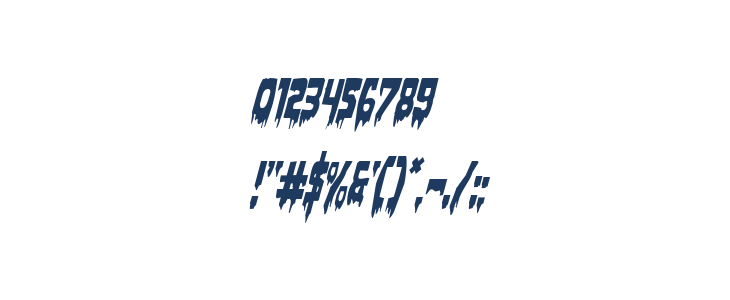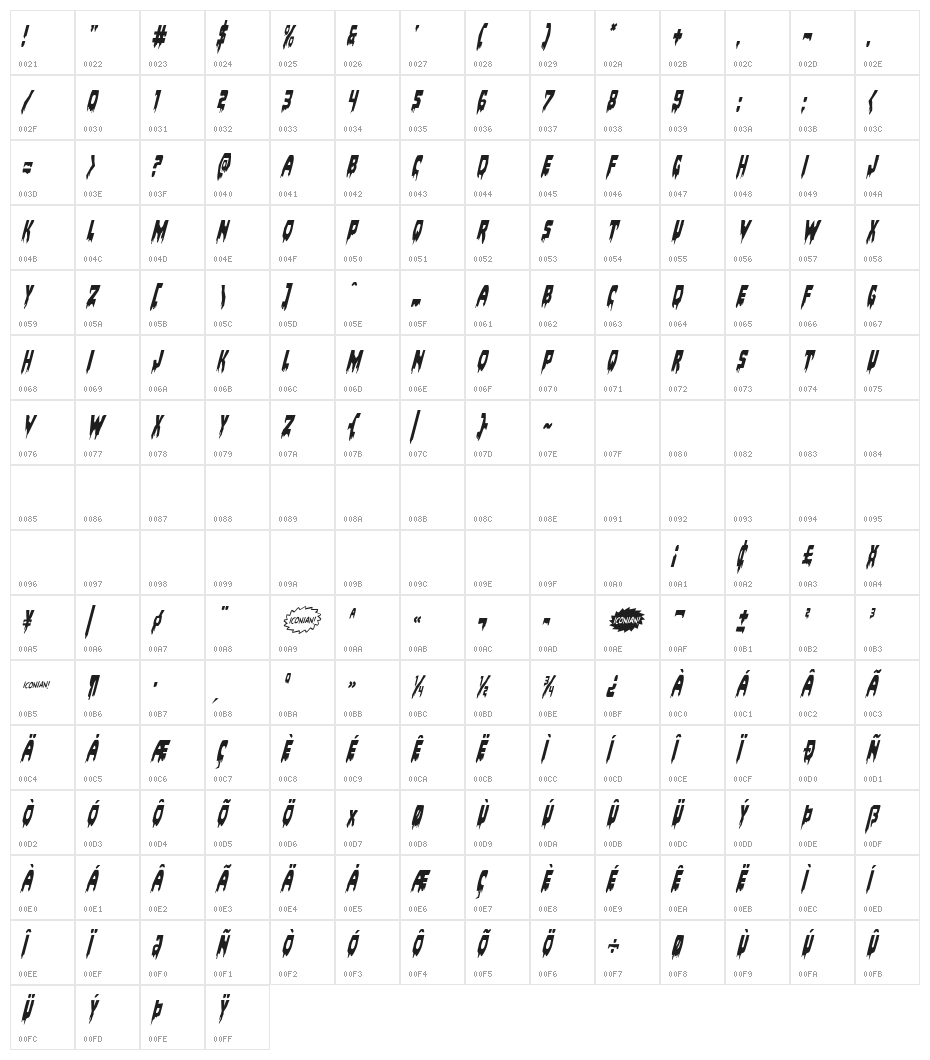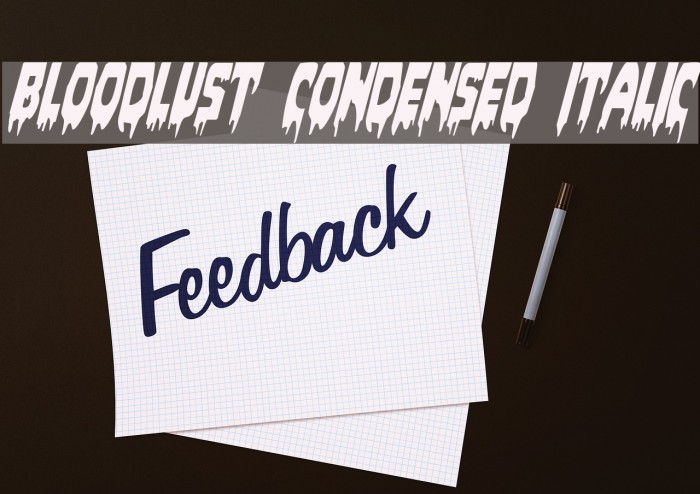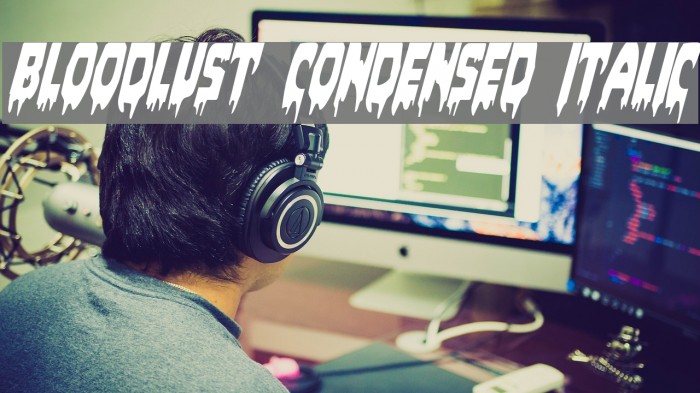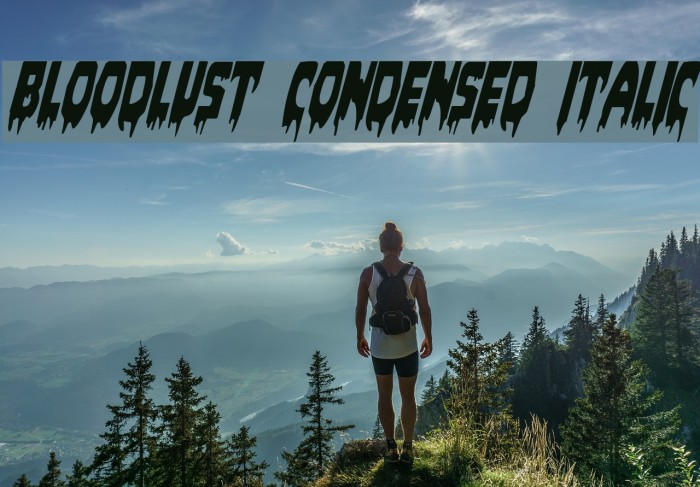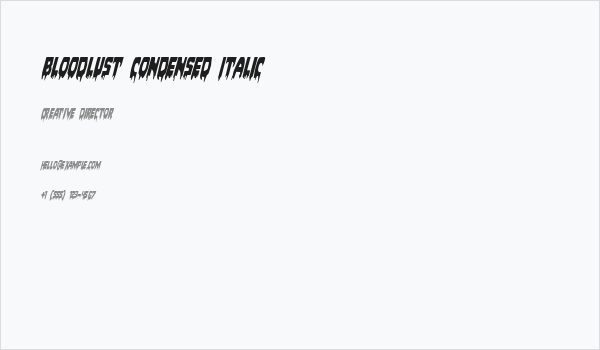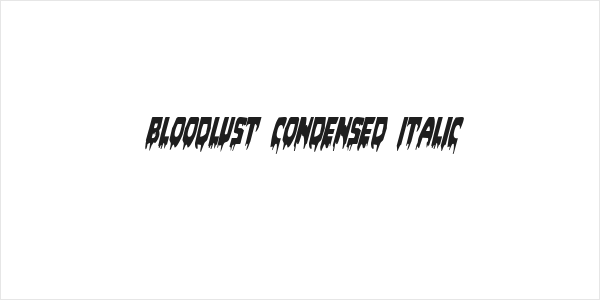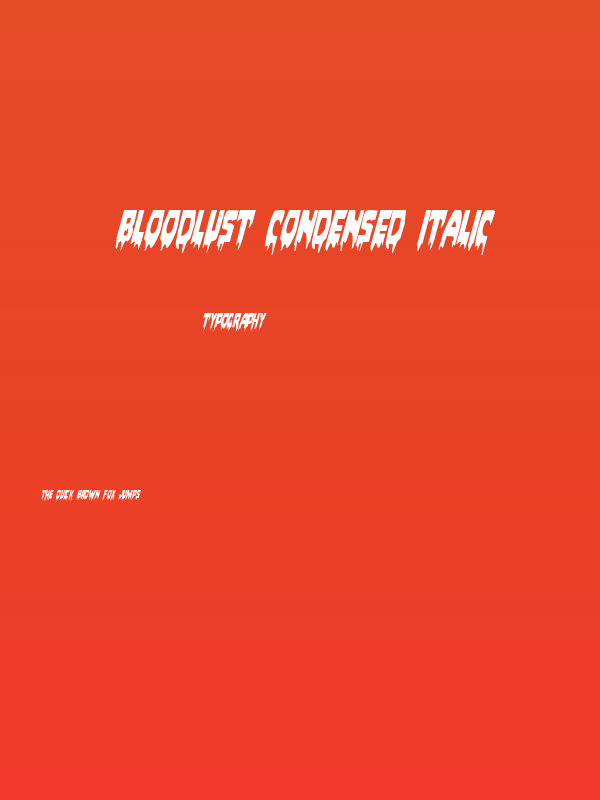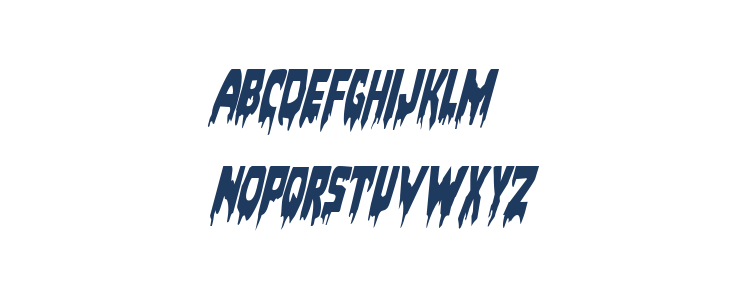
Bloodlust Condensed Italic Font
Bloodlust Condensed Italic Description
This font features a dramatic and edgy design, characterized by sharp, jagged edges that give it a blood-dripping effect. The letters are condensed and italicized, enhancing the sense of movement and urgency. Its unique style is reminiscent of horror themes, making it ideal for projects that require a bold and striking visual impact. The uppercase and lowercase letters maintain a consistent style, while the numbers and special characters complement the overall aesthetic. The font's condensed nature allows for tight spacing, making it suitable for impactful headlines and titles.
| Proposed Projects | Ideal for Halloween posters, horror movie titles, spooky event invitations, and themed merchandise. |